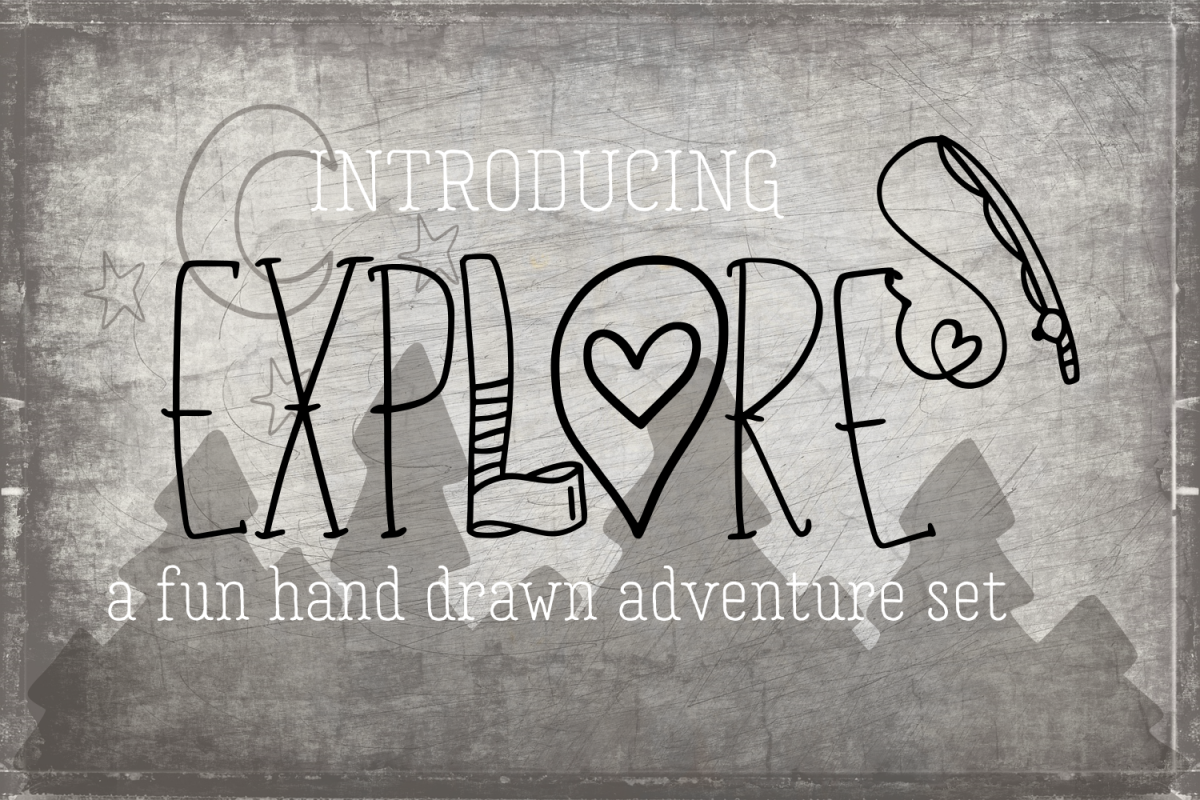
This font is perfect for all your outdoor design needs! Including a hand lettered alphabet, a set of adorable woodland creatures, camping clipart, and nautical ornaments! All wrapped up in 1 packed full font!